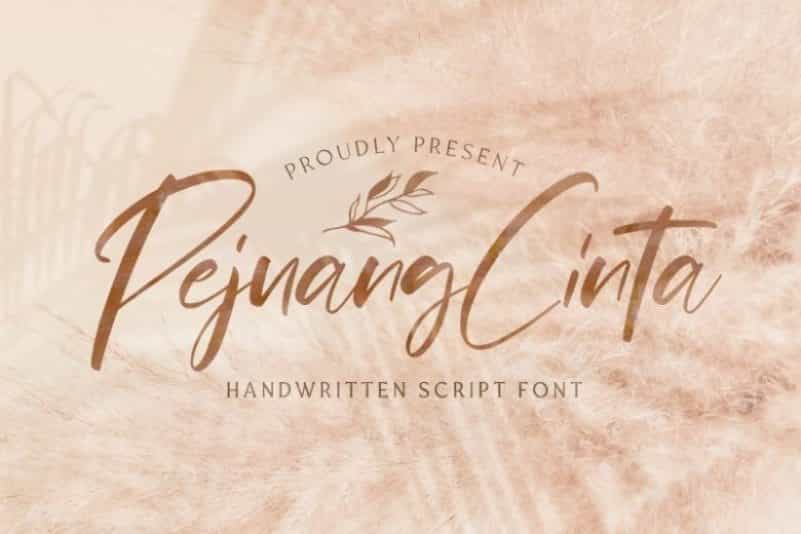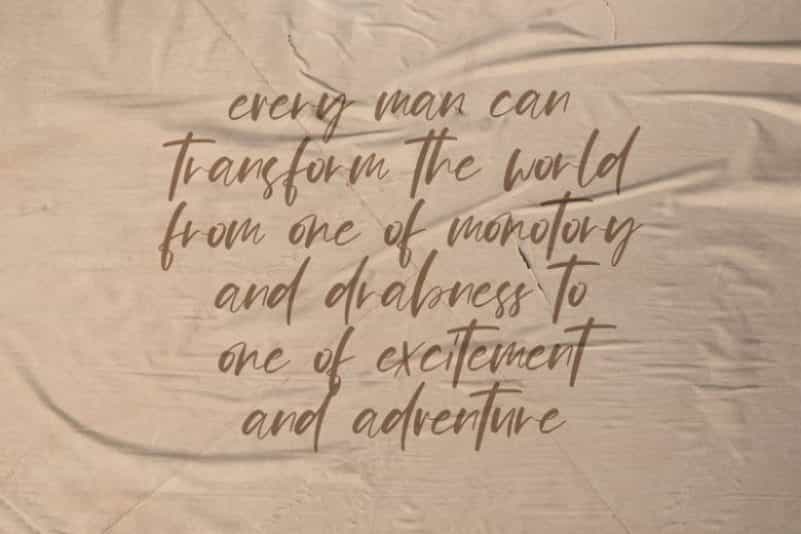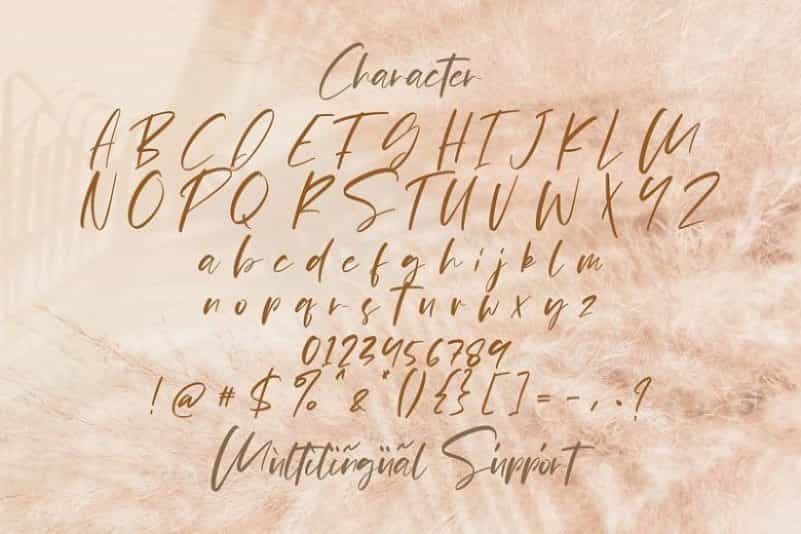
Pejuang Cinta is a distinctive handwriting typeface and script style. This typeface is specifically designed for elegant and beautiful handwriting styles and is perfect to create your own unique branding.